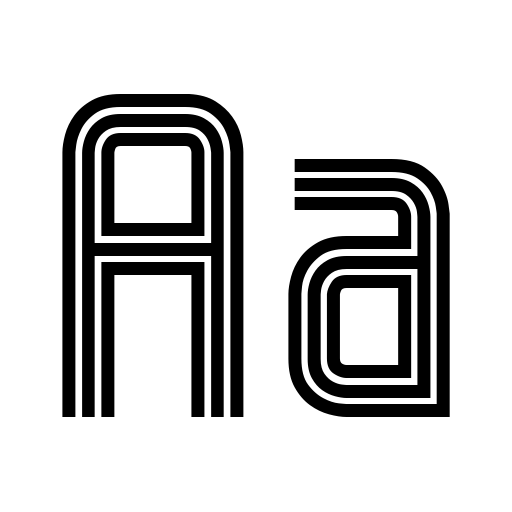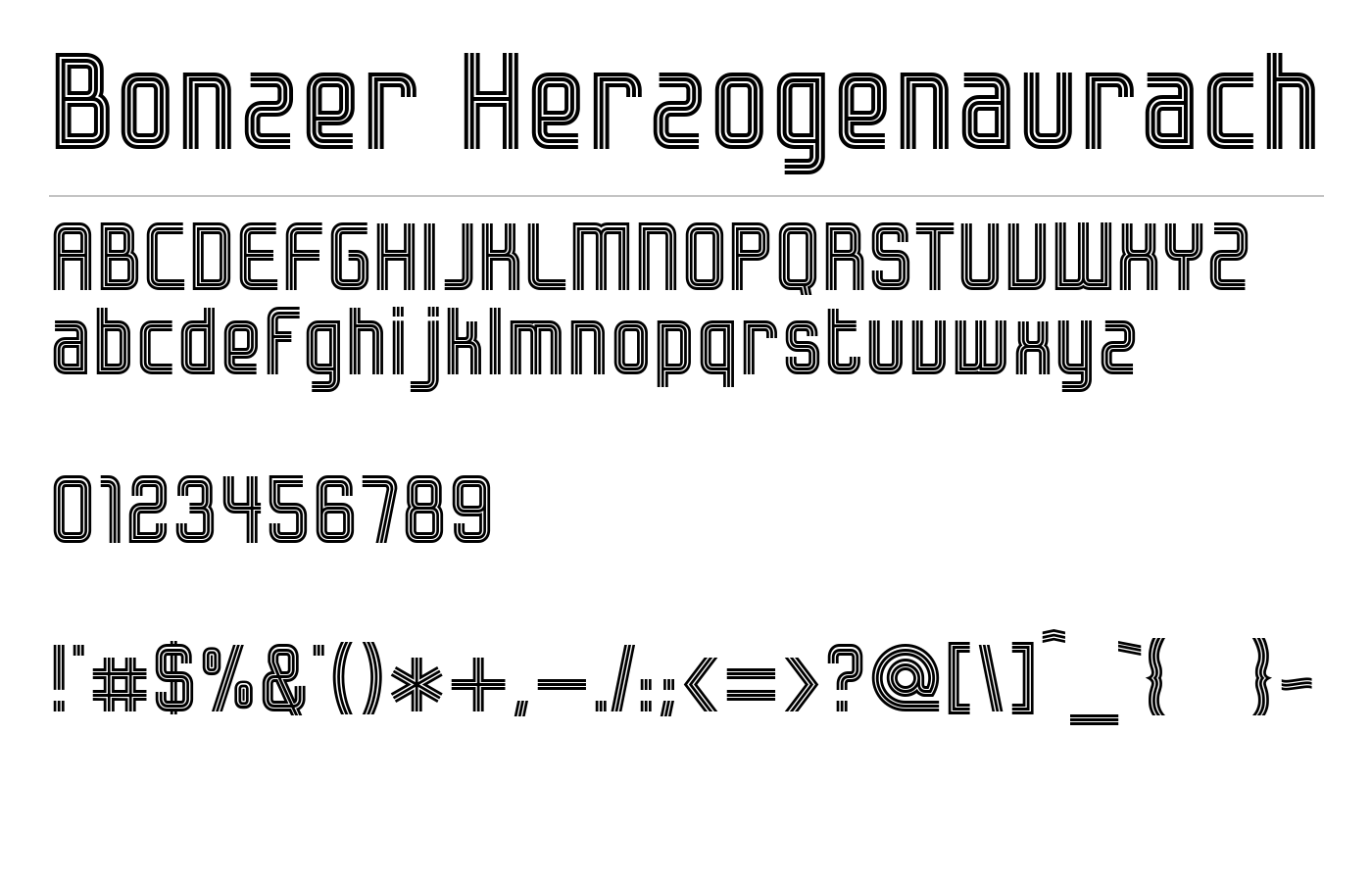
Bonzer Herzogenaurach is a modern, condensed sans serif font characterized by its unique multi-line stroke design that creates a sleek, architectural feel. Its narrow letterforms and consistent line weight make it ideal for eye-catching headlines, logos, and branding that seek a contemporary, futuristic, and stylish impression. This font works well in creative, tech-savvy, or experimental contexts where bold, distinctive typography is needed to stand out.
Bonzer Herzogenaurach Font
About Bonzer Herzogenaurach Font